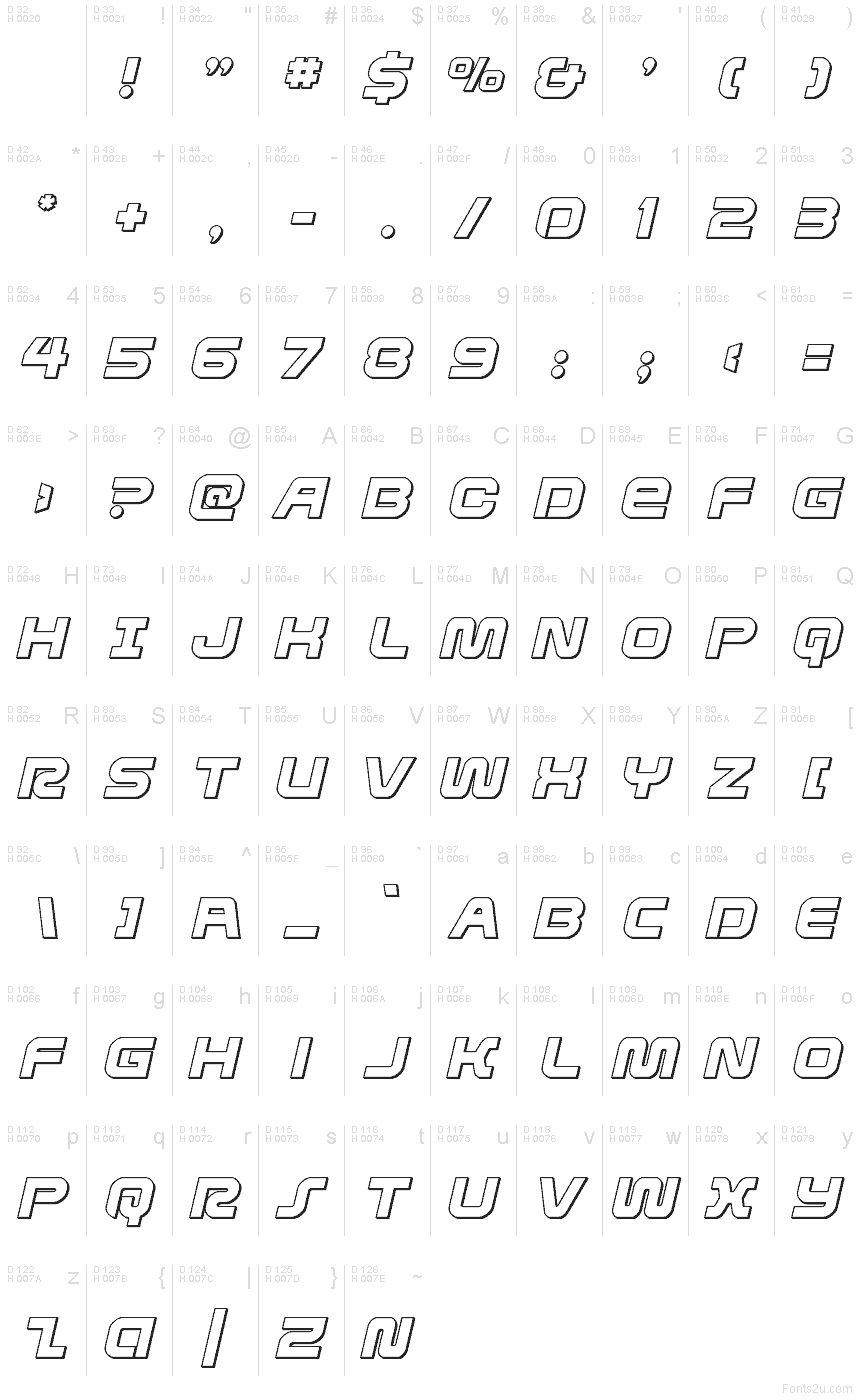
Rocket Command 3D Italic
Rocket Command 3D Italic font by Iconian Fonts combines a futuristic and geometric style with bold expanded forms for creating a strong presence. This free display font reflects technological innovation with its angular shapes that reference retro styles but in a modern way.
Experiment using Rocket Command 3D Italic for tech logos, video game design, posters, branding, movie ads, event promotional items, online videos’ opening scenes, album covers, and social media banners.